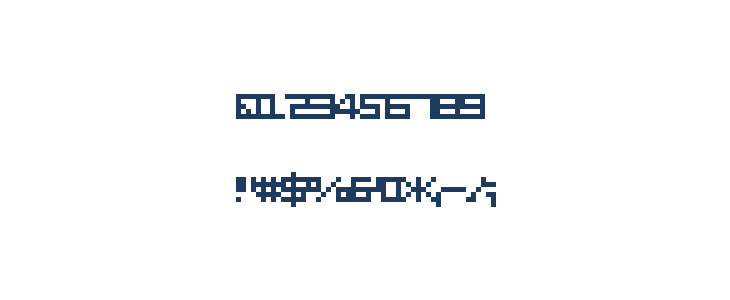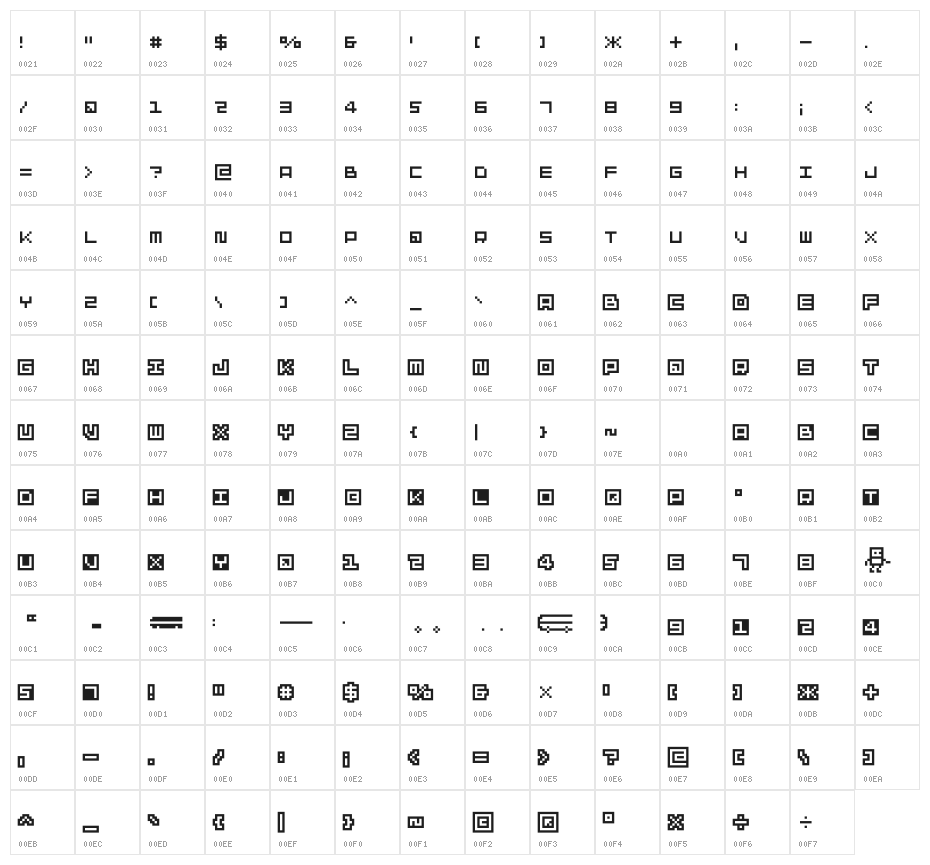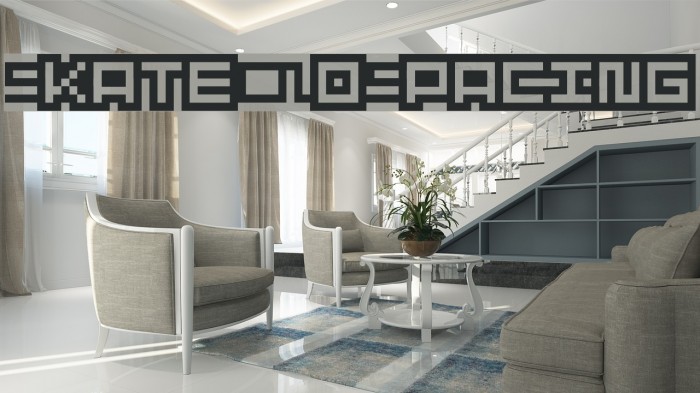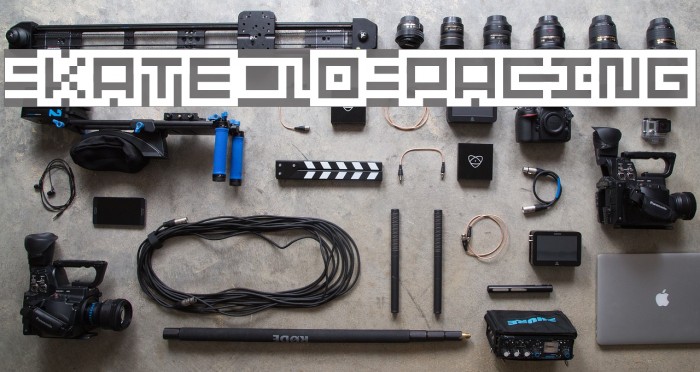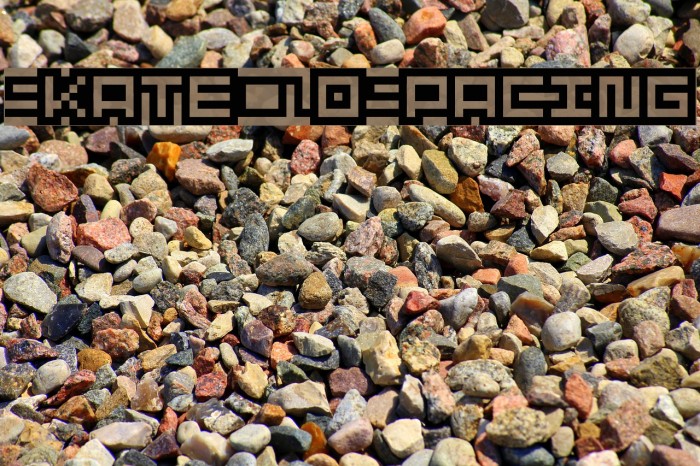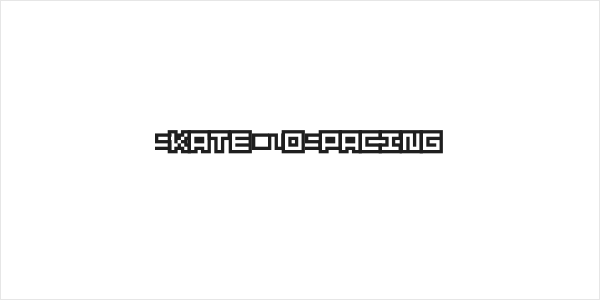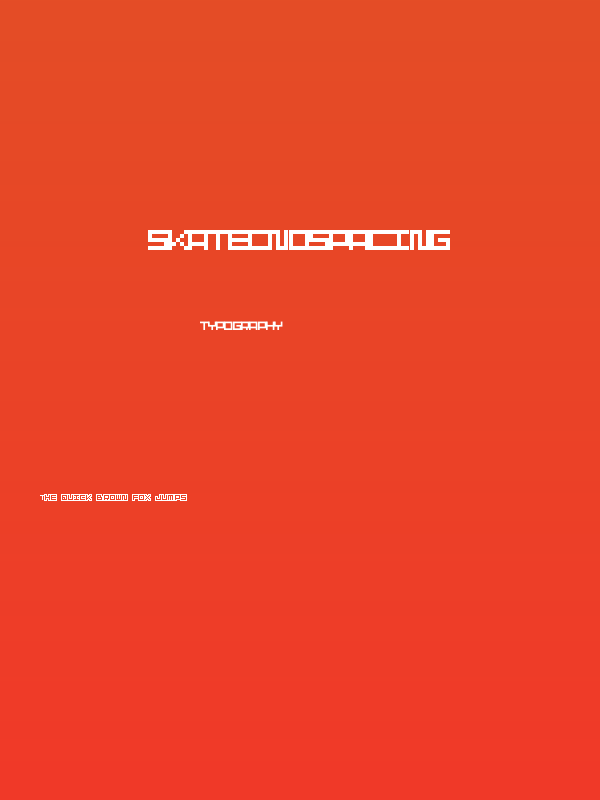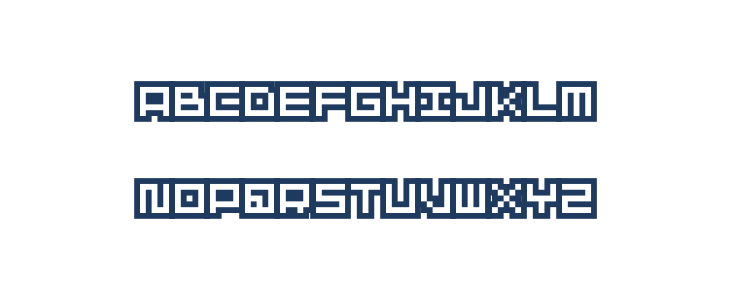
SkateCNoSpacing Font
SkateCNoSpacing Description
This font features a bold, geometric design with a pixelated, block-like appearance. Each character is constructed with a uniform thickness, creating a cohesive and structured look. The font's style is reminiscent of early digital or arcade graphics, giving it a retro, tech-inspired feel. The characters are tightly spaced, enhancing the compact and dense aesthetic. This font is ideal for projects that require a modern yet nostalgic touch, such as video game titles, tech-themed posters, or digital art. Its distinct style ensures high readability and impact, making it suitable for headlines and logos.
| Overall Style | Retro, Tech-inspired |
| Proposed Projects | Video game titles, tech-themed posters, digital art, headlines, logos. |